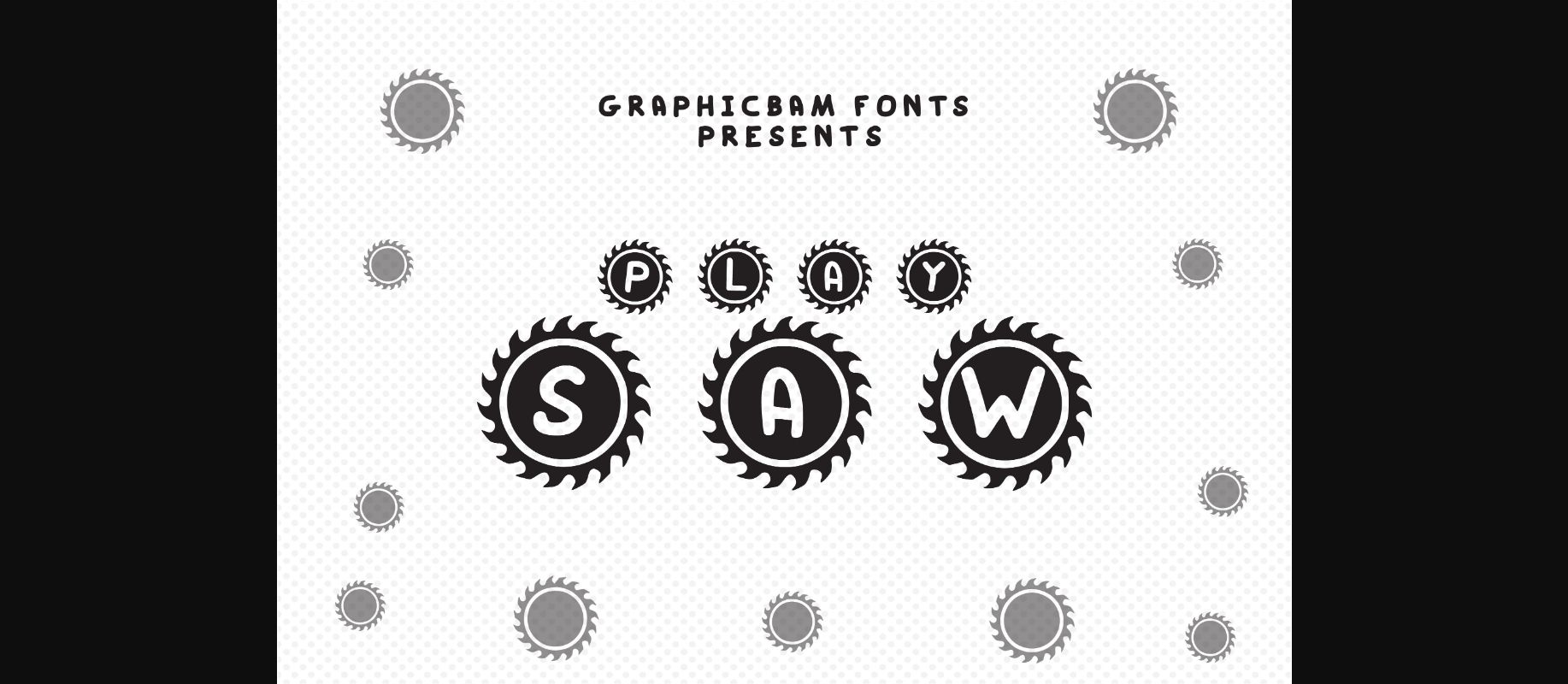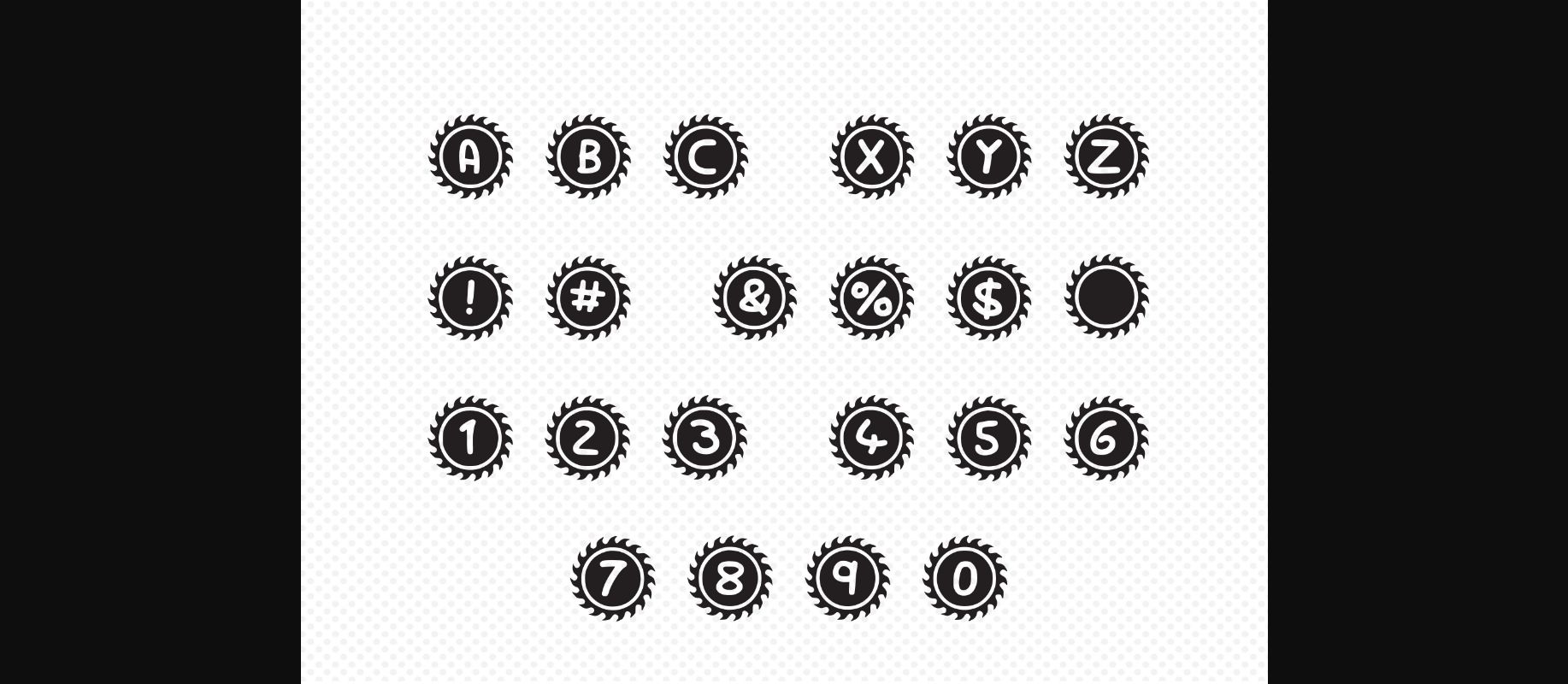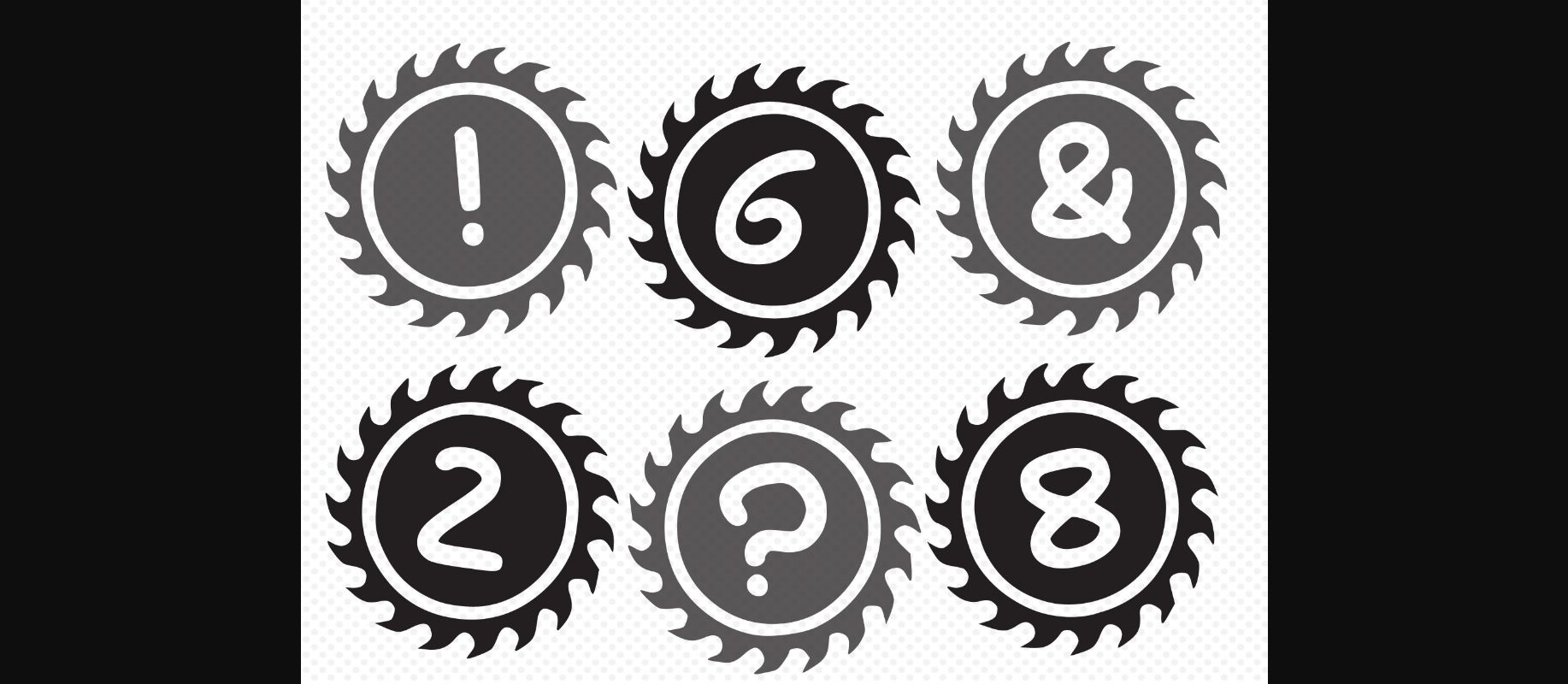
HomeDecorative FontsPlay Saw Font Decorative Fonts Play Saw Font FacebookXPinterestWhatsApp 1 of 5 ... Play Saw Font Poster 2... Play Saw Font Poster 3... Play Saw Font Poster 4... Play Saw Font Poster 5... About Play Saw Font Crafty and artsy, Play Saw is a decorative font fit for crafty-minded people! It works great for DIY-related projects, logos, social media posts, construction branding, and so much more. DOWNLOAD NOW People also explored Sunflower Font Rogena Splash Font Tendencious Font Degres Script Font Little Bird Font Bigstone Font Brush Growegy Font Chiffon Font Amsterdam Laviera Font 338 0 TagsPlay Saw Font Previous articlePlay Umbrella FontNext articlePlay Smile Font LEAVE A REPLY Cancel reply Comment: Please enter your comment! Name:* Please enter your name here Email:* You have entered an incorrect email address! Please enter your email address here Website: Save my name, email, and website in this browser for the next time I comment. Personal Use Free Manbow Personal Use Free Read more about this font Marthissa Personal Use Free Read more about this font Mike Ferrari 16017 Personal Use Free Read more about this font Sunflower Personal Use Free Read more about this font BLOG 5 Fonts That Will Dominate Design Trends in 2026 5 Fonts for 2026 That Will Dominate Design Trends Typography plays a critical role in visual communication, and as we look ahead to 2026, it’s... Top 7 Google Fonts Alternatives for Faster and Privacy-Friendly Web Design (2025) Fonts That Capture the Spirit of New York City Best Fonts for T-Shirt Design – Top 2025 Picks